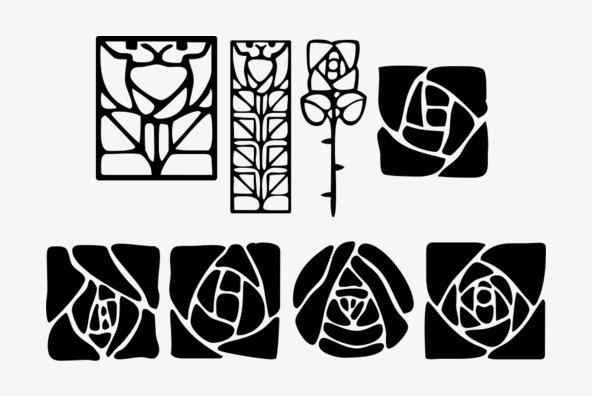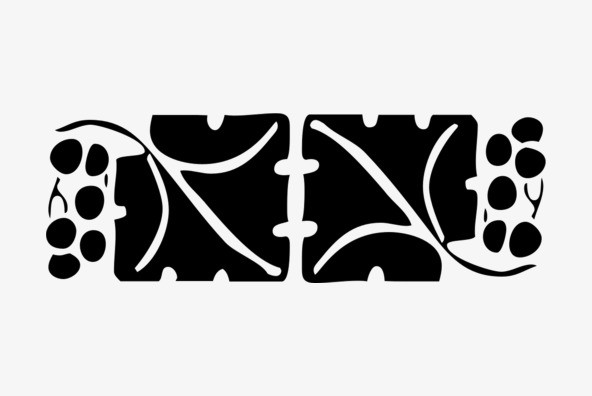
P22 Arts And Crafts Ornaments
Produced in association with The Burchfield-Penney Art Center (Buffalo, New York), the Arts and Crafts font set derives from Roycroft books and periodicals designed by multi-faceted artist, Dard Hunter, in the early 1900s.
Arts and Crafts now includes over 50 decorative elements to give your documents a unique and distinguished mission-style appearance. Also included are various ligatures which add even more flair to this distinctive font set.